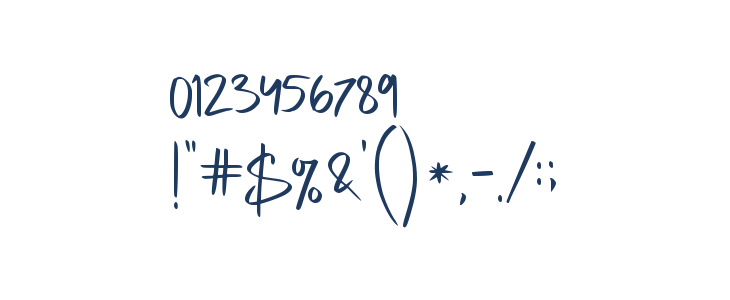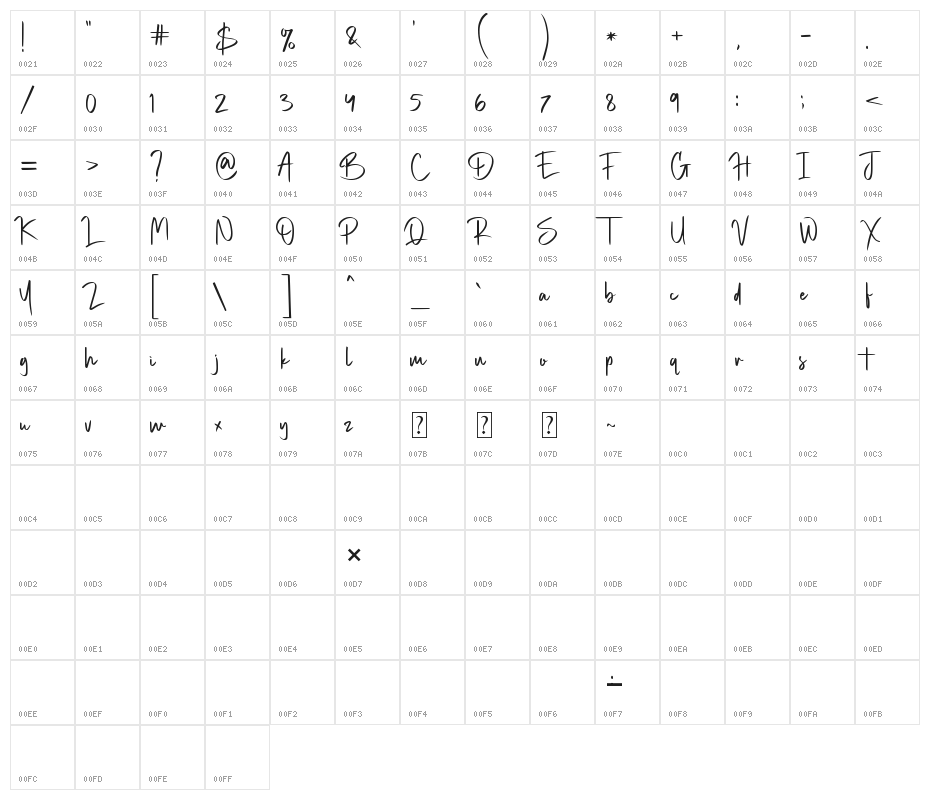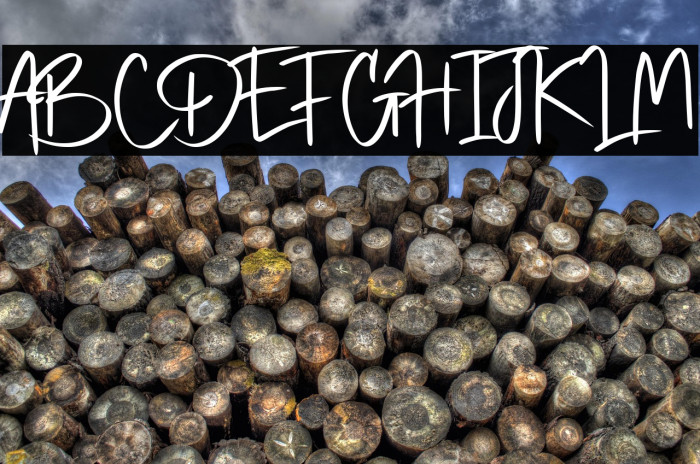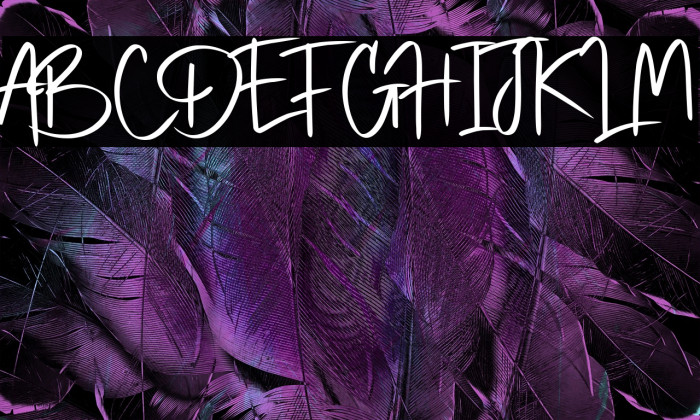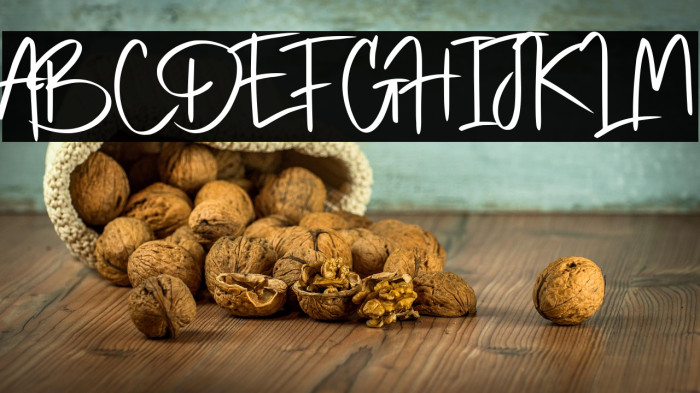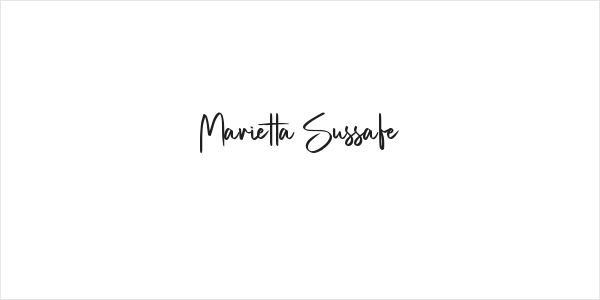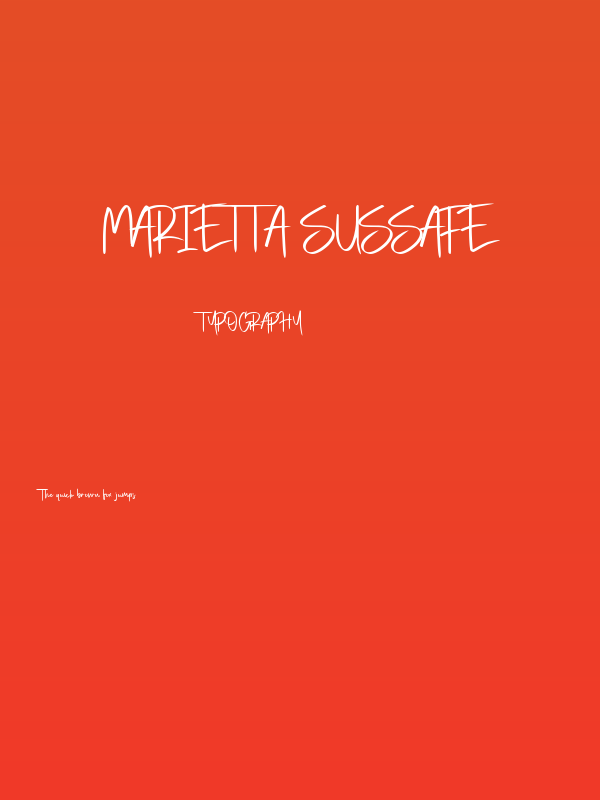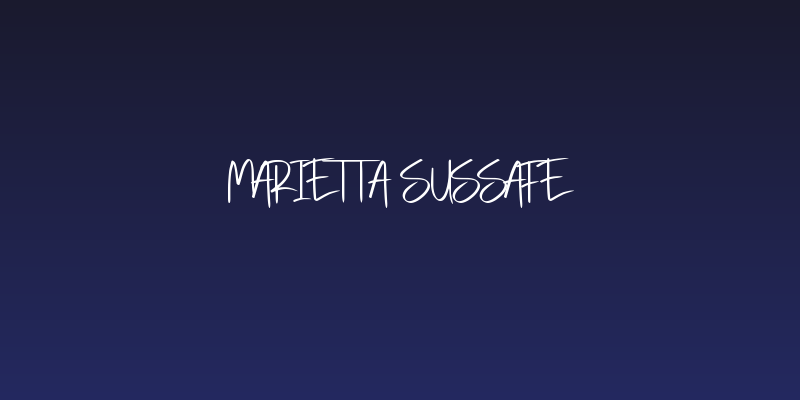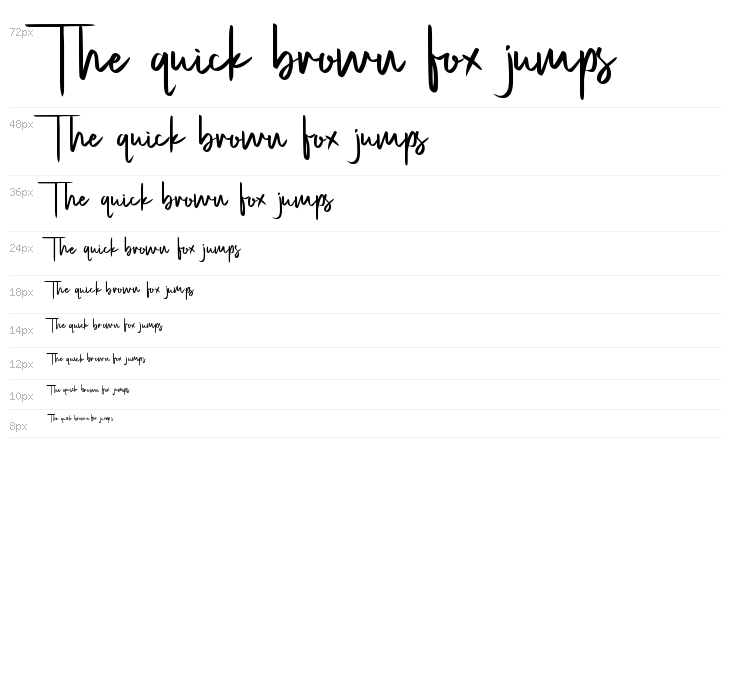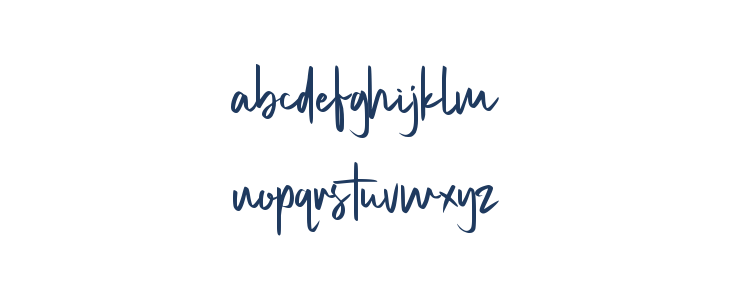
Marietta Sussafe Font
Marietta Sussafe Description
This font features a lively and expressive handwritten style, characterized by its fluid and dynamic strokes. The uppercase letters are bold and slightly elongated, giving a sense of movement and energy. The lowercase letters maintain a consistent flow, with some letters like 'g' and 'y' having distinctive loops that add to the playful nature of the font. The numbers are clear and legible, maintaining the same handwritten aesthetic. Special characters are creatively integrated, matching the overall style with a touch of whimsy. This font is perfect for projects that require a personal and informal touch, such as invitations, greeting cards, or creative branding.